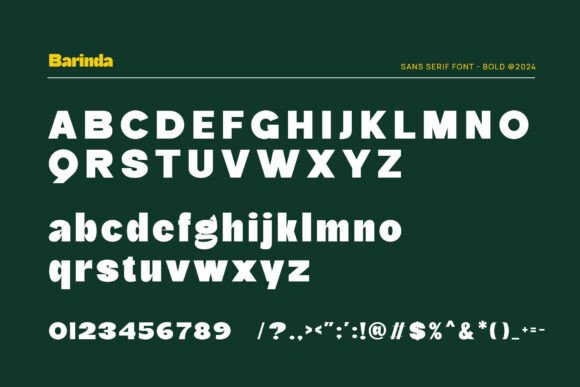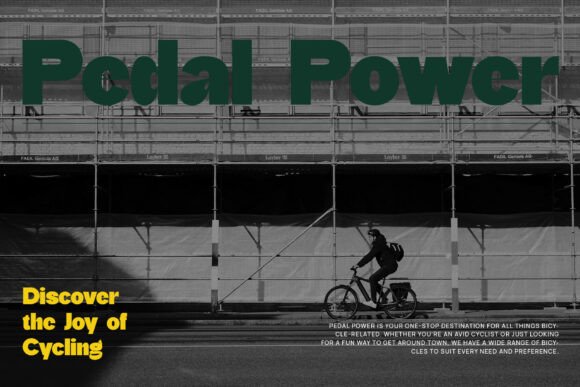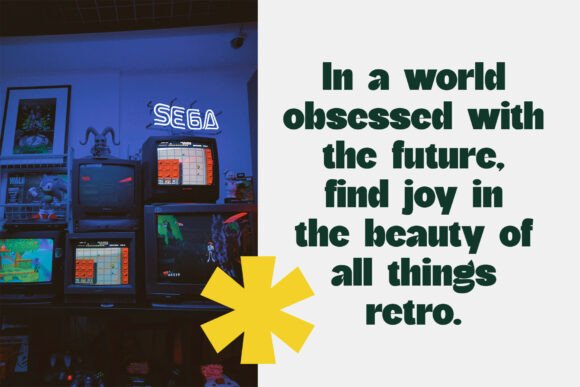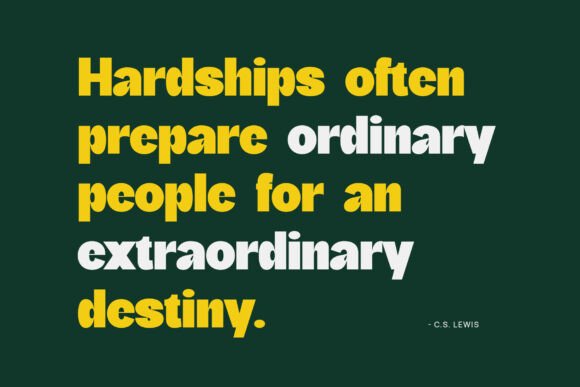
Introducing Barinda Font: A Bold and Modern Sans Serif for Creative Projects
In the world of typography, fonts play a crucial role in conveying messages, expressing emotions, and creating visual identities. For designers, crafters, and marketers, finding the right font can make all the difference in a project’s success. If you’re looking for a bold, modern, and highly impactful font, look no further than Barinda Font. In this article, we’ll explore the features, benefits, and uses of Barinda, and why it’s becoming a go-to choice for creative professionals.
What is Barinda Font?
Barinda is a bold sans serif font characterized by its distinctive geometric build and high visual impact. Its strong curves, wide proportions, and modern aesthetic make it an ideal choice for a variety of design applications, including branding, packaging, posters, and editorial headlines. The font’s smooth letterforms ensure readability, while its bold and confident appearance adds a touch of sophistication to any design.
Key Features of Barinda Font
- Bold and Geometric Design: Barinda’s bold and geometric design makes it perfect for creating eye-catching headlines, titles, and captions.
- Smooth Letterforms: The font’s smooth letterforms ensure excellent readability, even at smaller sizes.
- Wide Proportions: Barinda’s wide proportions create a sense of openness and airiness, making it ideal for designs that require a modern and fresh feel.
- Modern Aesthetic: The font’s modern aesthetic makes it perfect for designs that require a contemporary and trendy look.
Uses of Barinda Font
Barinda Font is versatile and can be used in a variety of design applications, including:
- Branding: Create a bold and memorable brand identity with Barinda’s distinctive geometric design.
- Packaging: Add a touch of modernity and sophistication to your packaging designs with Barinda’s smooth letterforms and wide proportions.
- Posters: Create eye-catching posters with Barinda’s bold and geometric design.
- Editorial Headlines: Use Barinda to create bold and confident headlines for magazines, newspapers, and online publications.
Benefits of Using Barinda Font
By using Barinda Font, designers and crafters can benefit from:
- Increased Visual Impact: Barinda’s bold and geometric design creates a high visual impact, making it perfect for designs that require attention-grabbing typography.
- Improved Readability: The font’s smooth letterforms ensure excellent readability, even at smaller sizes.
- Enhanced Creativity: Barinda’s modern aesthetic and versatile design make it an excellent choice for creative projects that require a unique and fresh look.
Tips for Using Barinda Font
To get the most out of Barinda Font, follow these tips:
- Use it Boldly: Barinda is a bold font, so use it boldly to create eye-catching headlines and titles.
- Pair it with Other Fonts: Experiment with pairing Barinda with other fonts to create a unique and visually appealing typography.
- Adjust the Size and Color: Adjust the size and color of Barinda to create visual hierarchy and add depth to your design.
Barinda Font is a bold, modern, and highly impactful sans serif font that’s perfect for creative projects that require attention-grabbing typography. Its distinctive geometric build, smooth letterforms, and wide proportions make it an ideal choice for branding, packaging, posters, and editorial headlines. With its versatility, readability, and modern aesthetic, Barinda is becoming a go-to choice for designers, crafters, and marketers. Try Barinda Font today and take your designs to the next level!